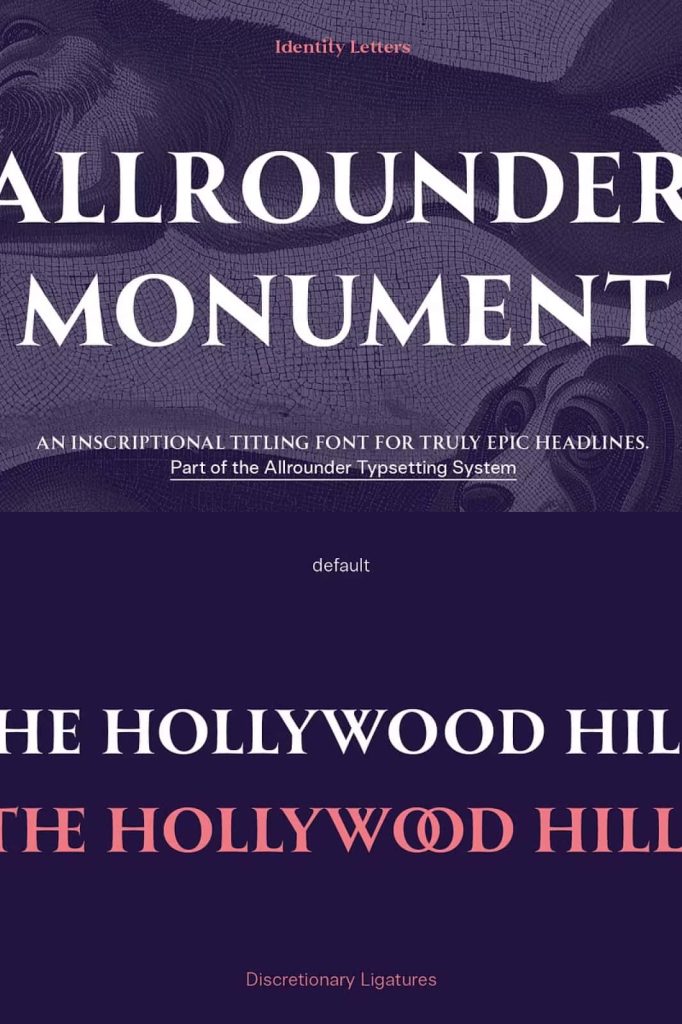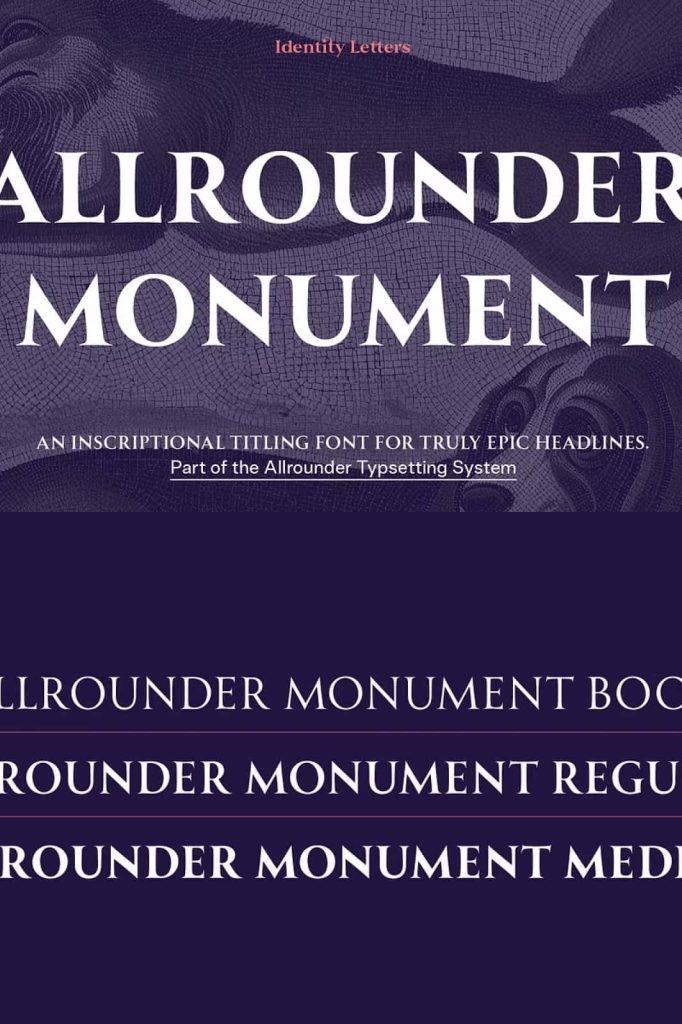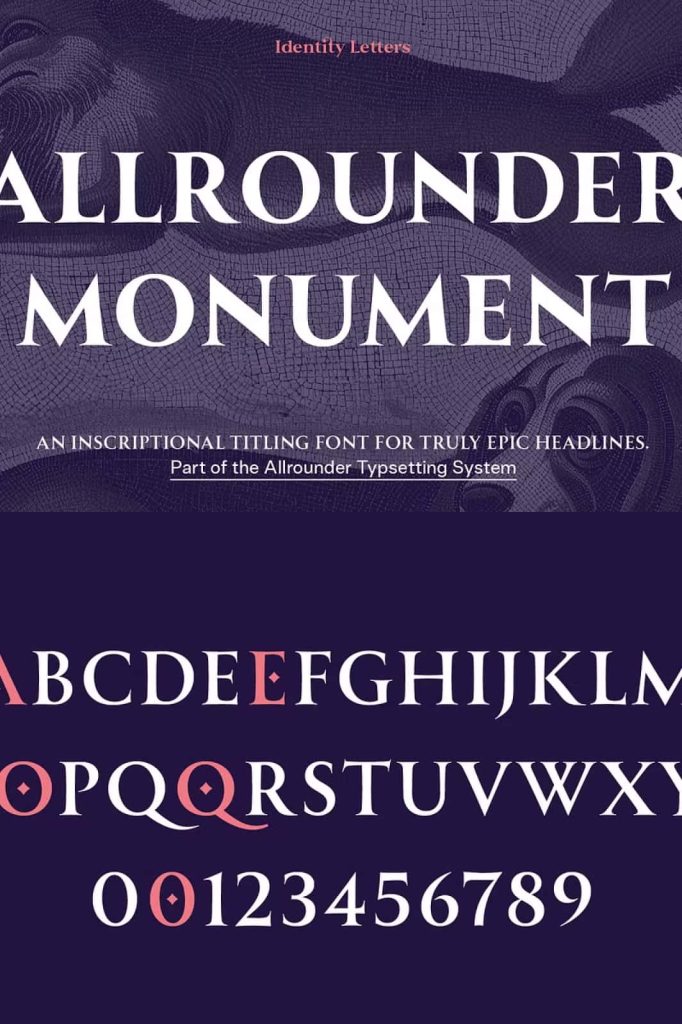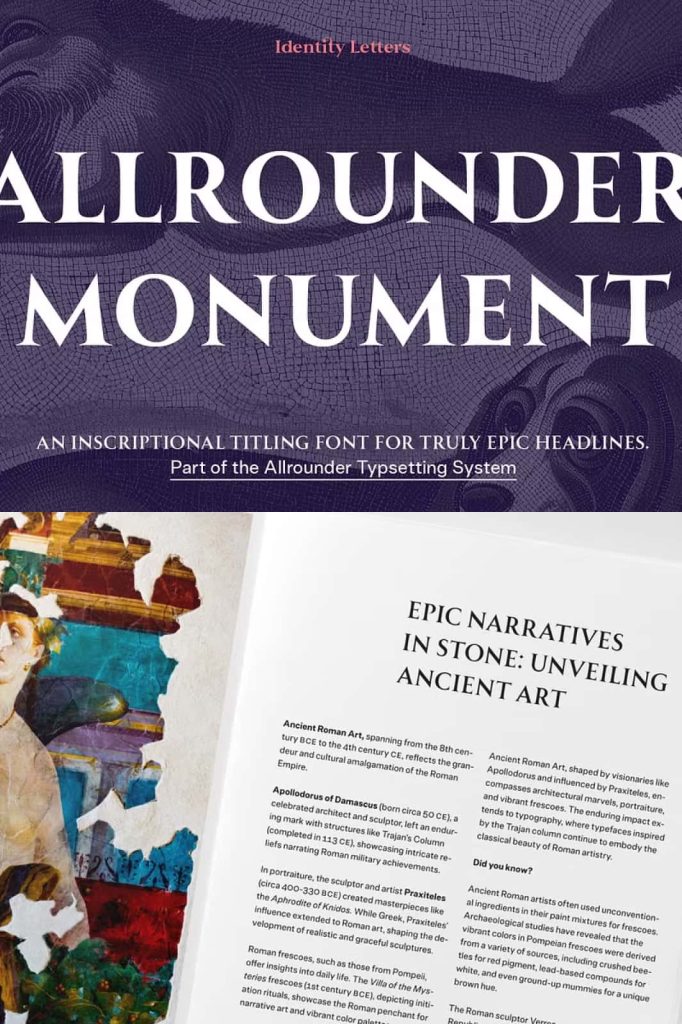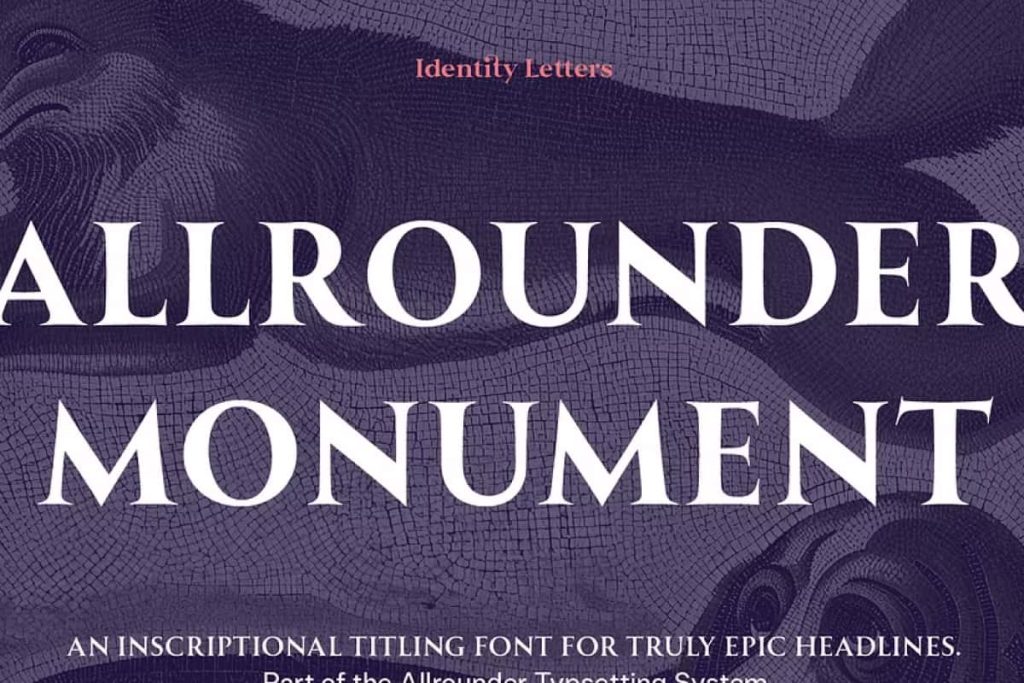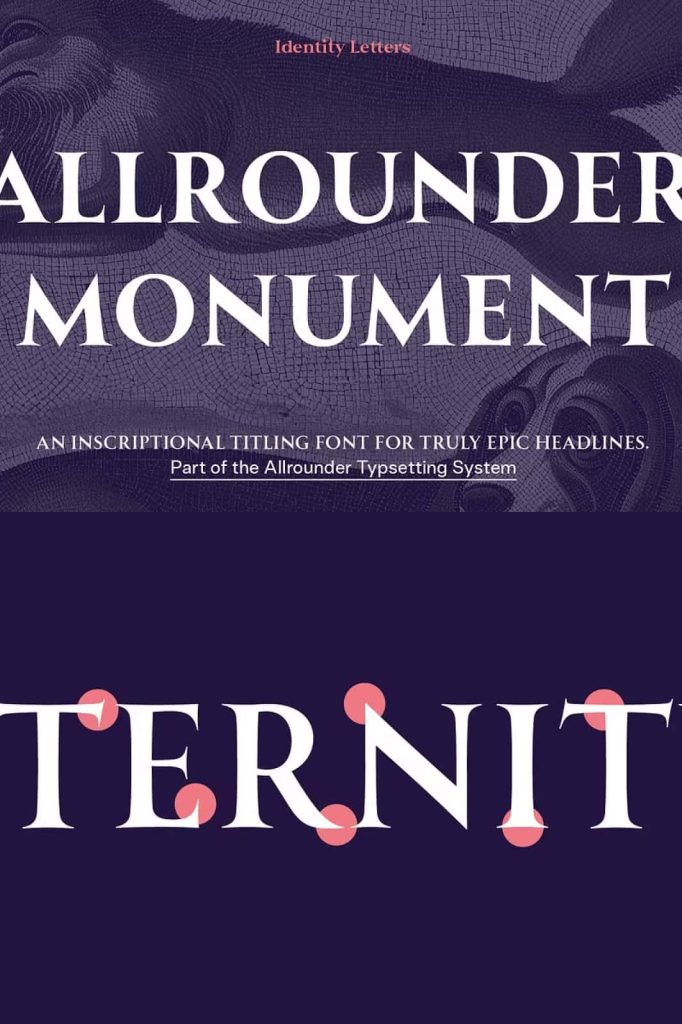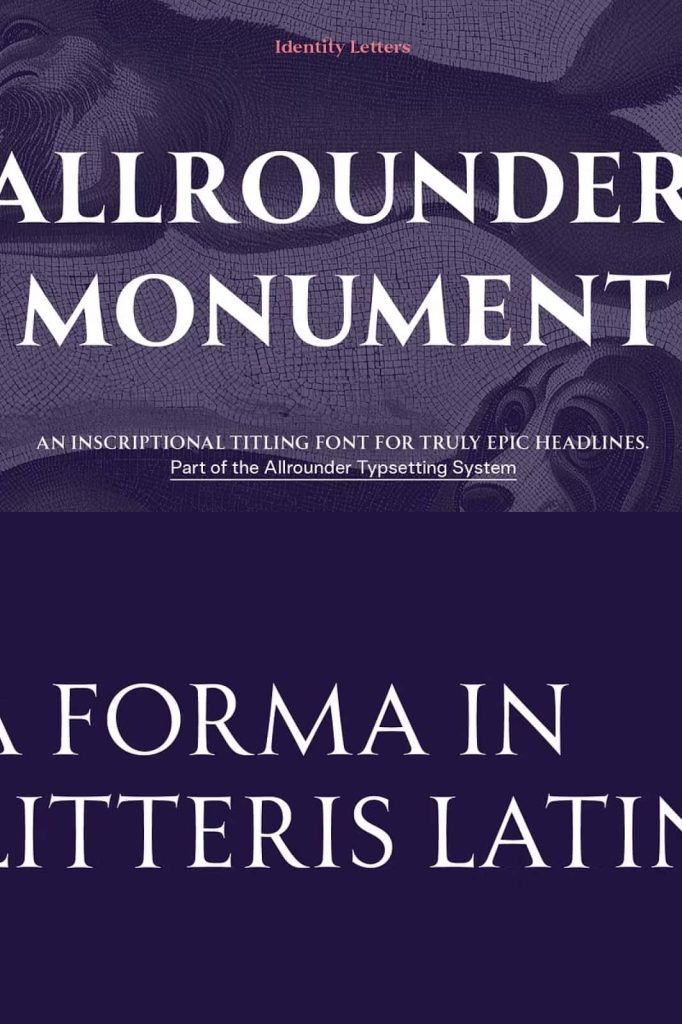
Allrounder Monument is a dignified titling typeface from the Allrounder superfamily. This all-caps serif design was inspired by ancient Roman inscriptions for a hint of history and an air of exclusivity.